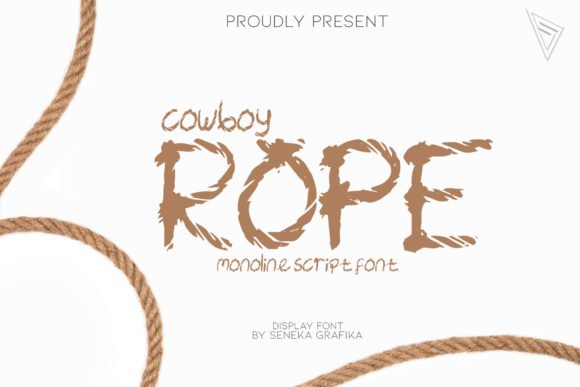
The Perfect Rodeo of Typography: Introducing Cowboy Rope Font
Do you ever find yourself staring at a blank page, searching for the perfect font to bring your design to life? That moment when the words start flowing, and the font just clicks – it’s like finding a treasure trove of inspiration. For designers, this feeling is a regular occurrence, but sometimes, all it takes is a little spark to set the creative wheels in motion.
Enter Cowboy Rope Font, a display font that’s as cool as a cowboy on a hot summer day. This uniquely designed font is perfect for adding a touch of rugged charm to any project, whether it’s a logo, a poster, or a website. With its bold, playful style, Cowboy Rope Font has the potential to elevate your designs and make them truly unforgettable.
As a valuable addition to your font library, Cowboy Rope Font is sure to be a game-changer for designers of all levels. Its versatility and unique style make it an asset that will be put to good use time and time again.
Cowboy Rope Font Key Features
- Unique Characteristics: Features a distressed, hand-drawn aesthetic with rope-like textures and subtle wear, giving it a rustic and authentic feel.
Cowboy Rope Font Review
Overall, I think the Cowboy Rope Font has a lot going for it. Here are some of its strengths:
- ✨ Unique aesthetic: The font’s bold, rope-like texture gives it a distinctive look that’s perfect for western-themed designs or anything that needs a touch of ruggedness.
- ✨ Versatility: While it’s often associated with country or rural themes, the font’s versatility makes it suitable for a wide range of applications, from branding to advertising.
- ⚠️ Readability: The font’s bold texture can make it difficult to read, especially at smaller font sizes. This might limit its use in certain applications where clarity is crucial.
- ⚠️ Limited character set: The font’s unique texture might not be suitable for all languages or character sets, which could be a problem for international designs.
Overall, I think the Cowboy Rope Font is a great choice for designers who need a bold, eye-catching font for their western-themed or rustic designs. Just be mindful of its limitations, and use it wisely.
The Cowboy Rope Font is perfect for creating a rustic or western-themed design. It’s commonly used in logos, branding, and marketing materials. To get the most out of this font, use it sparingly to add a touch of elegance and sophistication.
Some popular use cases for the Cowboy Rope Font include:
- Western-themed logos and branding
- Rustic wedding invitations and decorations
- Country music and entertainment branding